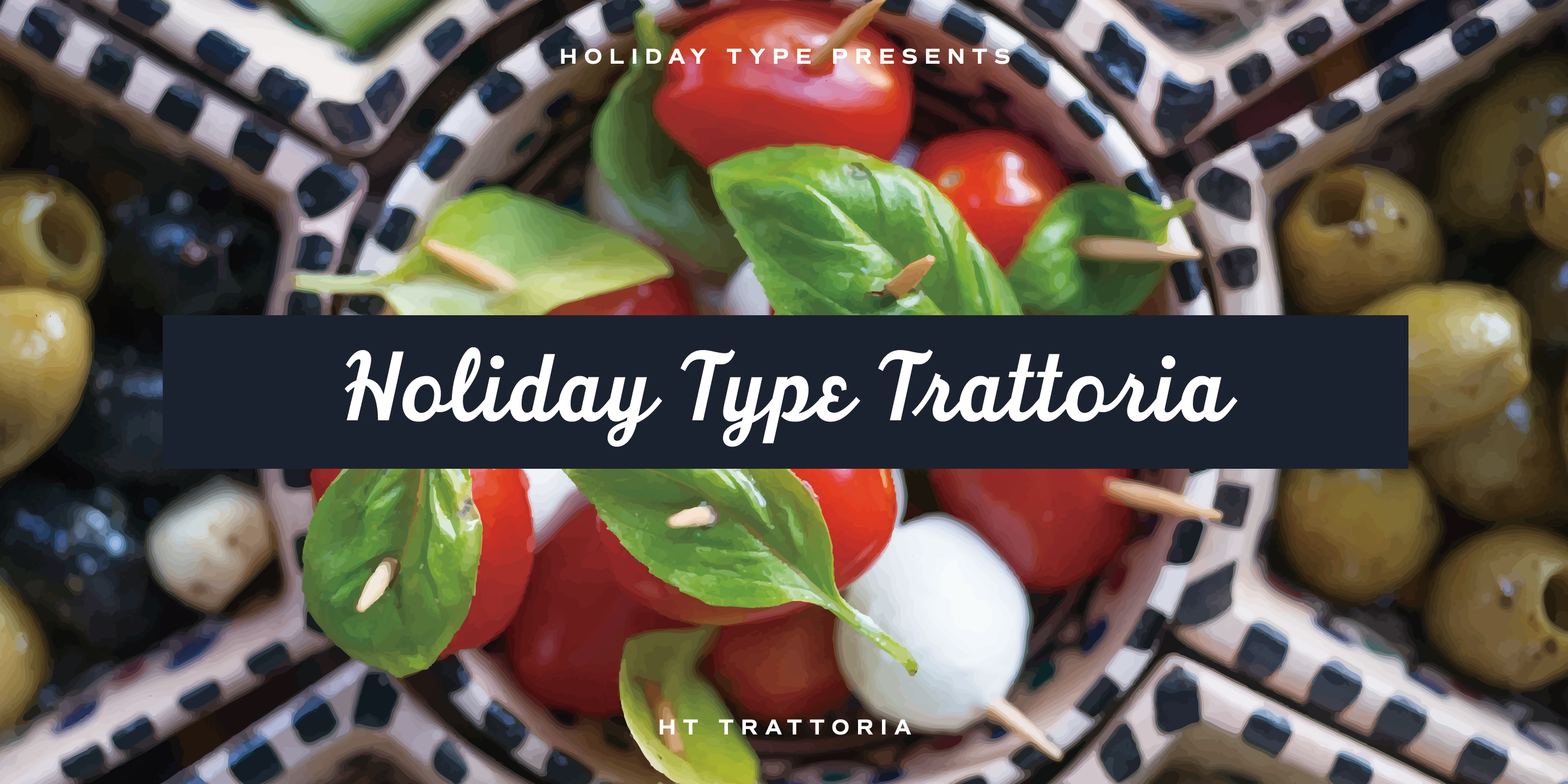
HT Trattoria Font is perfect for Italian restaurant branding, authentic pizzeria menus, Mediterranean cafe signage, wine bar logos, culinary magazine layouts, food packaging design, cooking class materials, gourmet food labels, rustic kitchen decor, and traditional recipe books. This charming typeface brings the warmth and authenticity of Italian dining culture to any food-related design project.
What makes HT Trattoria Font exciting is its ability to capture the genuine spirit of traditional Italian hospitality through carefully crafted letterforms that evoke the cozy atmosphere of family-owned trattorias. The font features organic curves, handcrafted details, and rustic charm that immediately transport viewers to the heart of Italy's culinary traditions. Its warm, inviting character creates an emotional connection with food lovers while maintaining excellent readability for menus and signage, making it perfect for establishments that want to convey authentic Italian dining experiences.
The HT Trattoria Font family includes regular, medium, and bold weights, each capturing the essence of Italian craftsmanship with varying degrees of visual impact. The collection also features decorative elements and culinary symbols that enhance the Mediterranean aesthetic for comprehensive restaurant branding solutions.
Transform your culinary projects with HT Trattoria Font Free Download and bring the authentic taste of Italy to your designs. This lovingly crafted typeface combines traditional Italian typography heritage with modern functionality, making it ideal for both traditional and contemporary food service establishments. The font's extensive character support includes European language compatibility and culinary symbols, ensuring perfect integration for international Italian dining concepts. Whether you're designing restaurant identities, food product packaging, or culinary marketing materials, this font delivers the genuine Italian character that makes dining experiences memorable and appetizing.